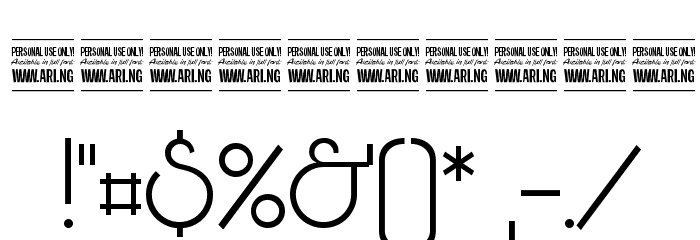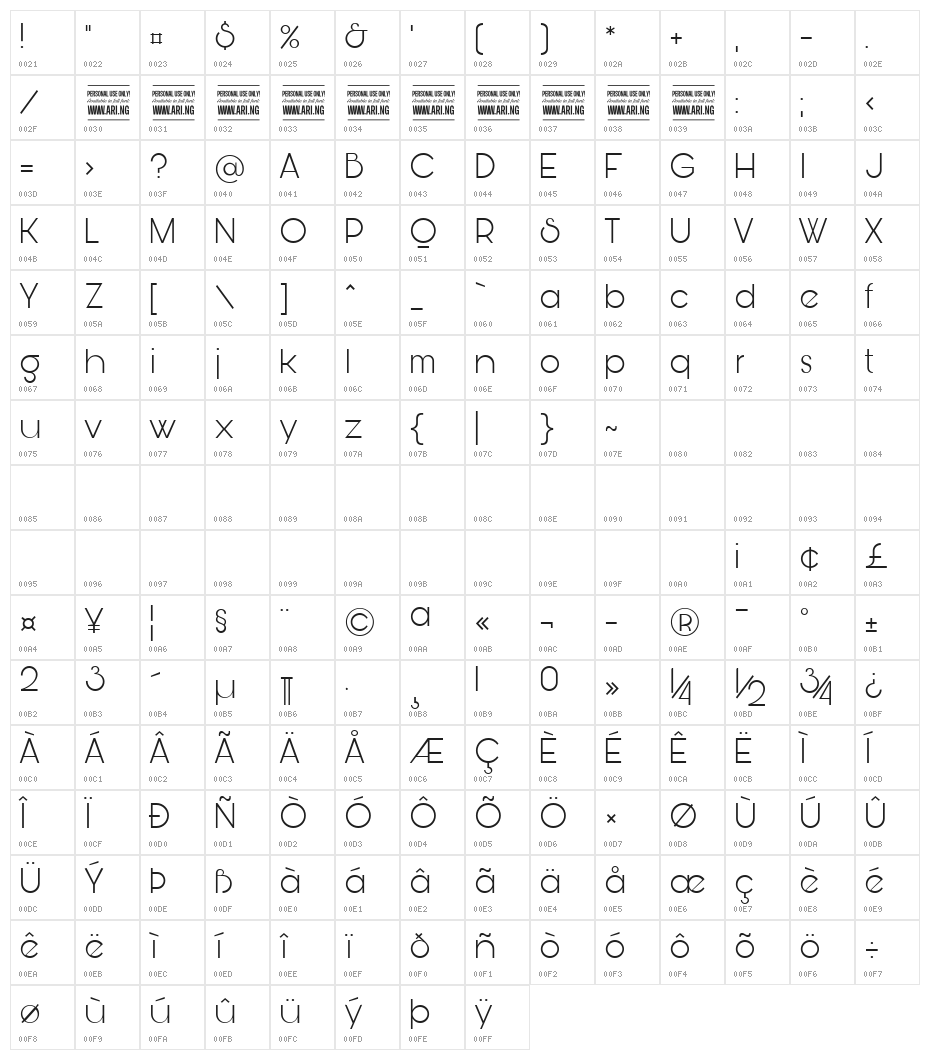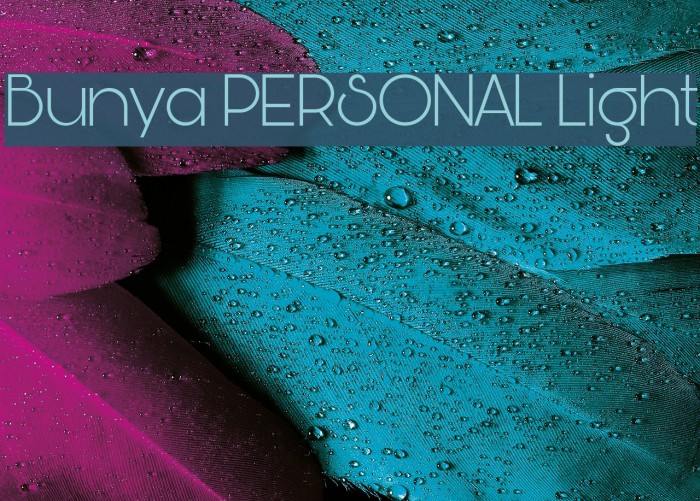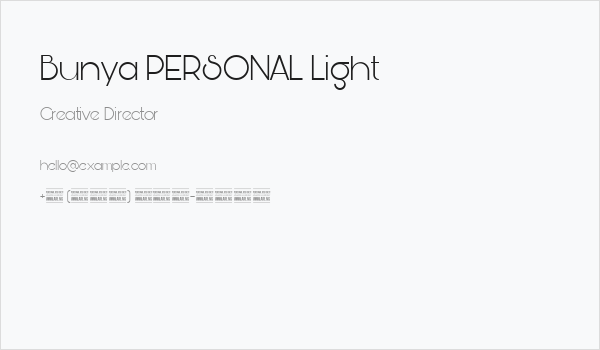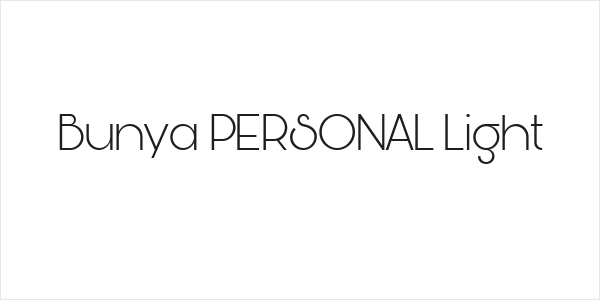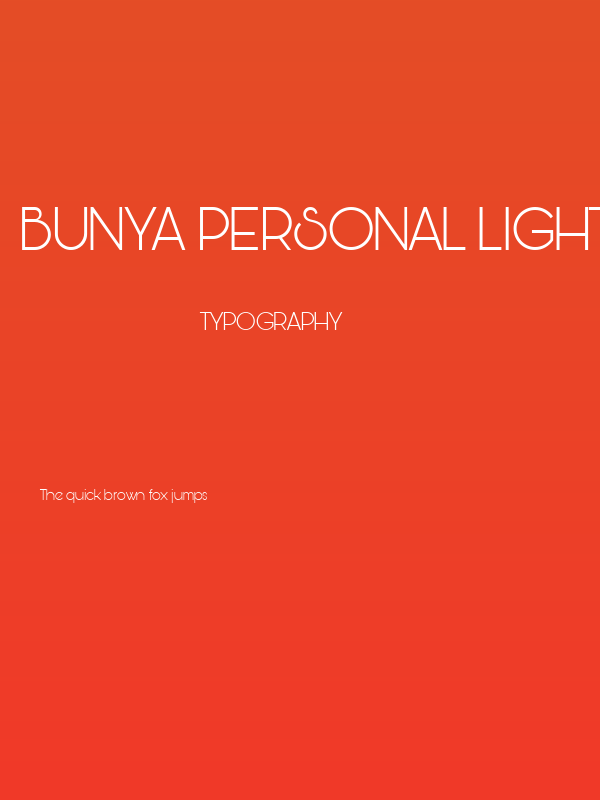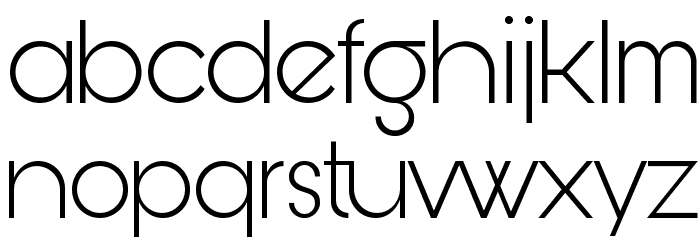
Bunya PERSONAL Light Font
Bunya PERSONAL Light Description
This font features a clean and modern sans-serif style with a light weight. The characters are elegantly designed with a geometric influence, showcasing a uniform stroke width that contributes to its minimalistic appearance. The uppercase letters are tall and slightly condensed, while the lowercase letters maintain a consistent x-height, enhancing readability. The numerals and special characters are crafted with the same attention to detail, ensuring a cohesive look across all elements. This font is ideal for projects that require a contemporary and sophisticated touch.